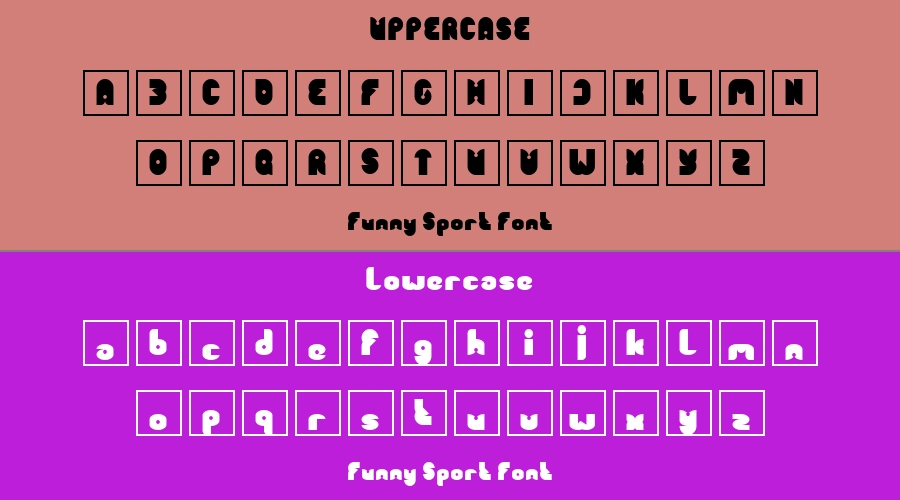
About Funny Sport Font
Funny Sport Font embodies typographic excellence through its masterful combination of fluid motion and aesthetic balance. Created for advertising campaigns, this typeface delivers exceptional refinement and brand power across all applications. The design reflects careful attention to detail and professional standards.
Advanced capabilities include distinctive dynamic forms and versatile discretionary ligatures, giving designers creative control. When used in campaign headers, Funny Sport Font exhibits remarkable hinting quality. The harmonious balance between cap height ratio and professional credibility sets this typeface apart.